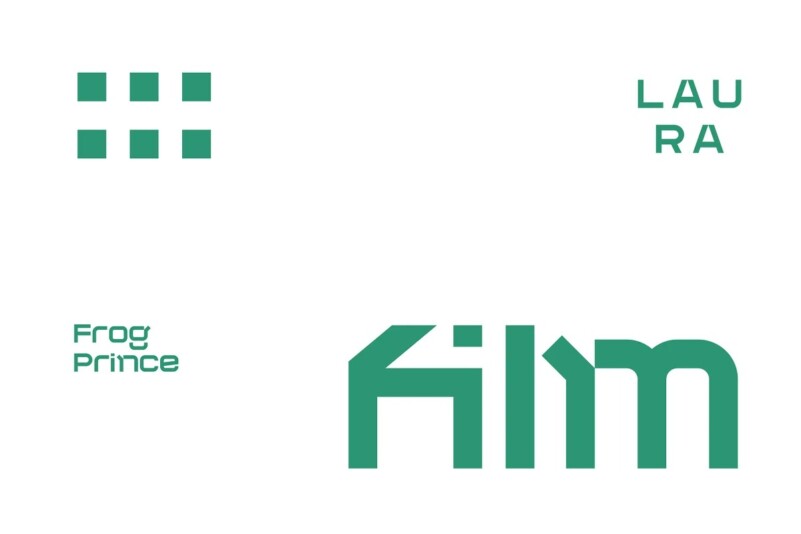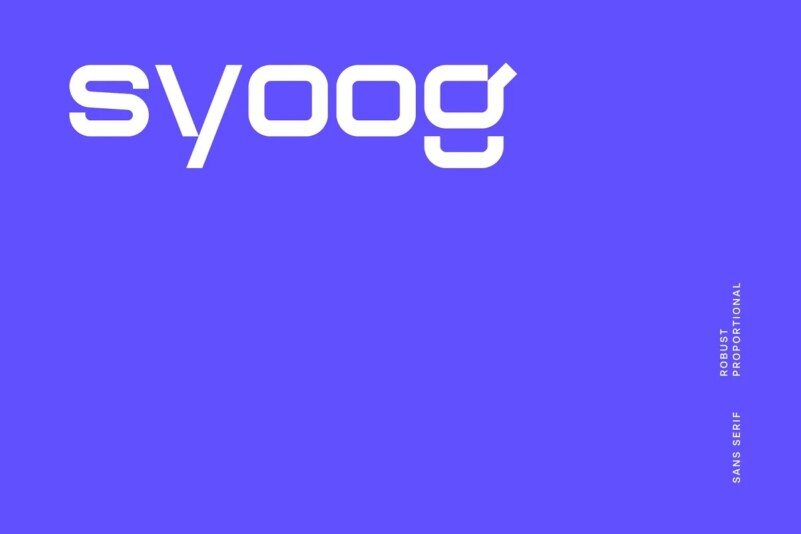
Syoog Font
Syoog is a robust proportional linear sans apt for headline, editorial, branding, packaging, printed materials and typographic applications. 150+ glyphs with ligatures and fractions provided in opentype .otf and .woff format.